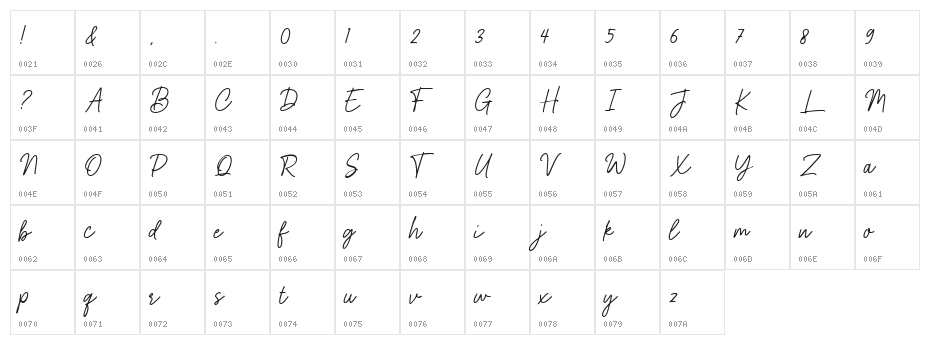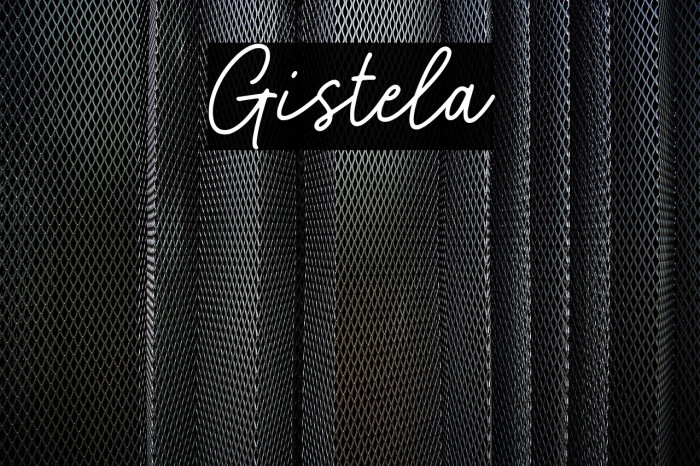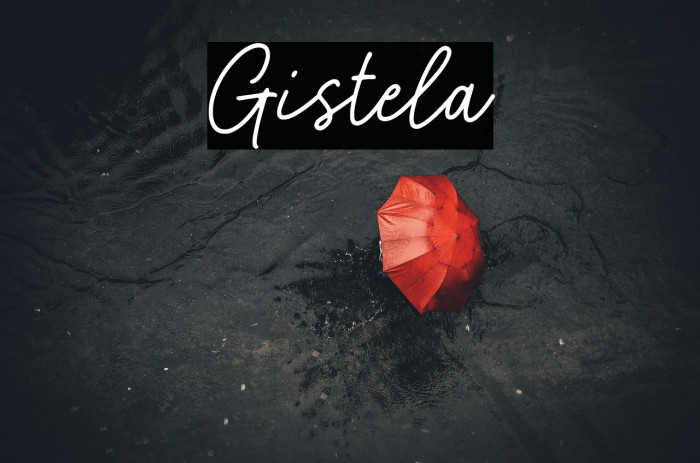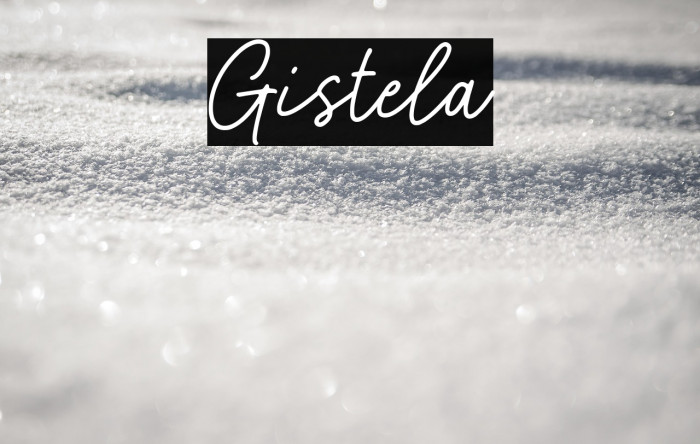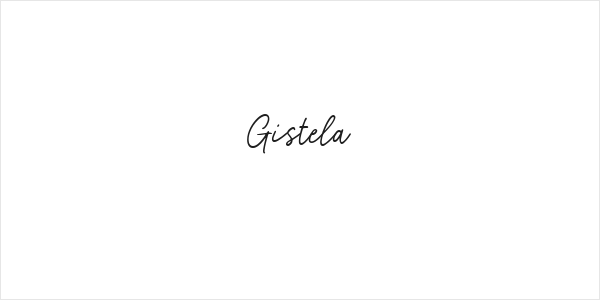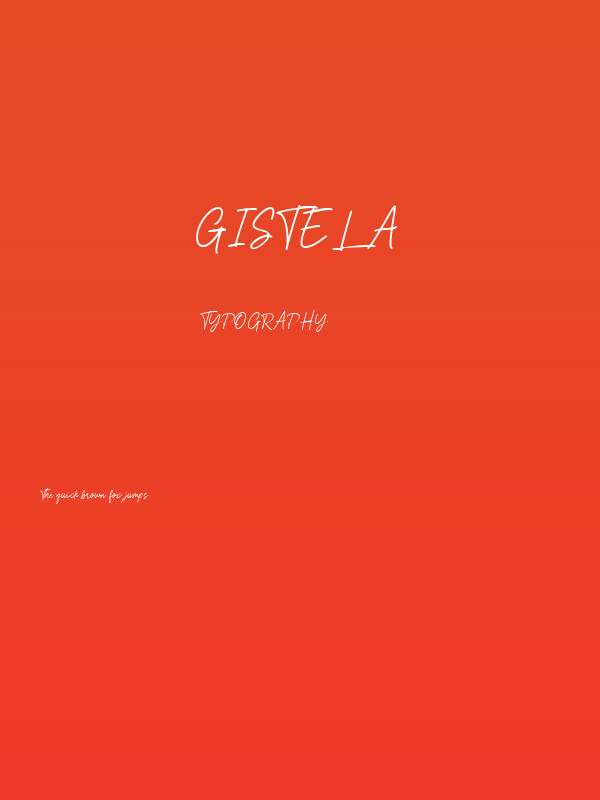
Gistela Font
Gistela Description
A flowing, elegant script font with a handwritten style, featuring smooth curves and a natural, personal touch.
| Use Case | Logos, Headlines, Personal notes |
| Proposed Projects | Invitations, greeting cards, personal branding. |